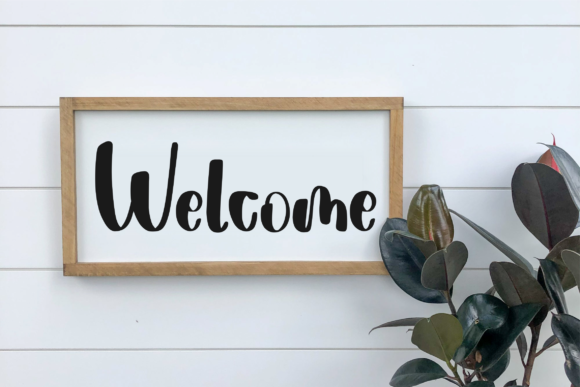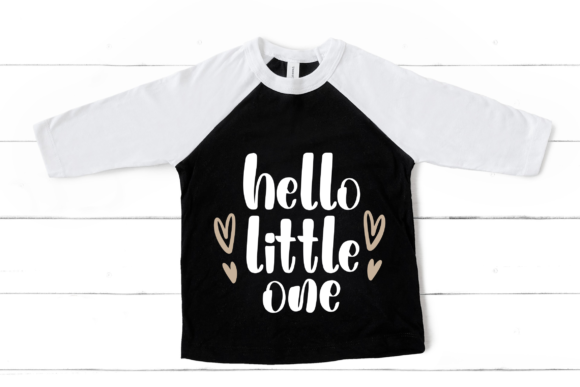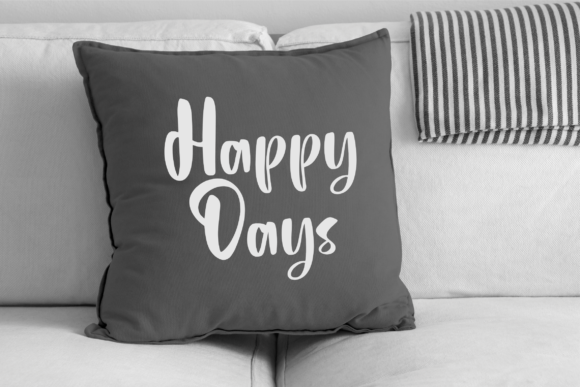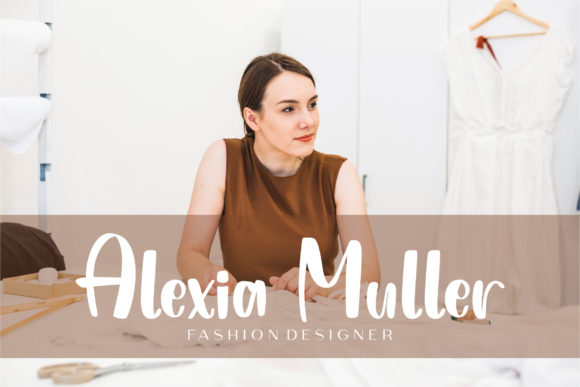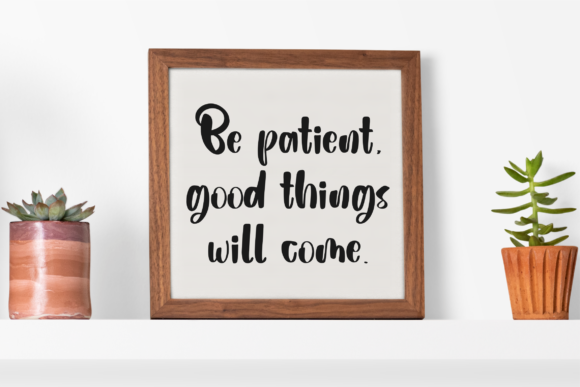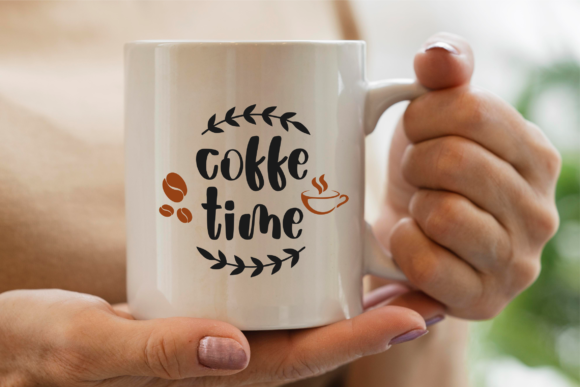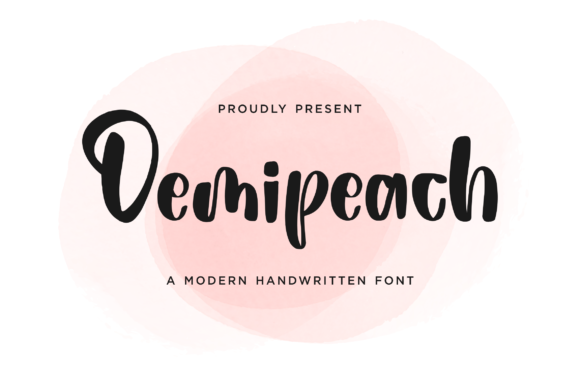
Discover the Elegance of Demipeach Font: Elevate Your Designs with this Trendy Script Font
In the world of typography, a new font has emerged that’s capturing the hearts of designers and crafters alike. Say hello to Demipeach Font, a trendy lettered and graceful script font that’s perfect for adding a touch of elegance to your designs. In this article, we’ll dive into the features and benefits of Demipeach Font, and explore how you can use it to take your designs to the next level.
What is Demipeach Font?
Demipeach Font is a beautiful script font that’s designed to add a touch of sophistication to your designs. With its flowing lines and delicate curves, this font is perfect for creating stunning visual content that’s sure to impress. Whether you’re working on a branding project, packaging design, or social media graphics, Demipeach Font is the perfect choice.
Key Features of Demipeach Font
- Trendy and Modern Design: Demipeach Font boasts a trendy and modern design that’s perfect for creating visually appealing content.
- Graceful Script Style: The font features a beautiful script style that’s perfect for adding a touch of elegance to your designs.
- Lettered and Handwritten: Demipeach Font has a lettered and handwritten feel that’s perfect for creating personal and unique designs.
- High-Quality Design: The font is designed with high-quality craftsmanship, ensuring that it looks stunning in any design.
Use Cases for Demipeach Font
Demipeach Font is a versatile font that can be used in a variety of design projects. Here are some use cases to get you started:
- Product Packaging: Add a touch of elegance to your product packaging with Demipeach Font.
- Branding Projects: Use Demipeach Font to create stunning branding materials, such as logos, business cards, and letterheads.
- Magazines and Editorials: Add a touch of sophistication to your magazine and editorial designs with Demipeach Font.
- Social Media Graphics: Use Demipeach Font to create stunning social media graphics that are sure to grab attention.
- Wedding and Event Design: Demipeach Font is perfect for creating beautiful wedding and event designs, such as invitations, programs, and signage.
Benefits of Using Demipeach Font
So why choose Demipeach Font for your design projects? Here are just a few benefits of using this stunning script font:
- Elegant and Sophisticated: Demipeach Font adds a touch of elegance and sophistication to any design.
- Versatile: The font is versatile and can be used in a variety of design projects.
- Easy to Read: Demipeach Font is easy to read, making it perfect for body text and headlines.
- Unique and Creative: The font has a unique and creative feel that’s sure to make your designs stand out.
Tips for Using Demipeach Font
Here are a few tips for using Demipeach Font in your design projects:
- Pair with Bold Fonts: Pair Demipeach Font with bold fonts to create stunning contrast and visual interest.
- Use on High-Contrast Backgrounds: Use Demipeach Font on high-contrast backgrounds to make it stand out.
In conclusion, Demipeach Font is a stunning script font that’s perfect for designers and crafters looking to add a touch of elegance to their designs. With its trendy and modern design, graceful script style, and versatility, this font is sure to become a favorite in your design arsenal. So why wait? Download Demipeach Font today and start creating stunning designs that are sure to impress!